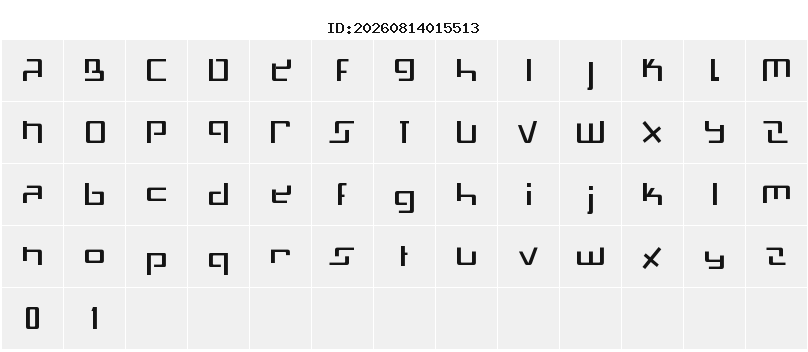
SwissMad Preview
• Font Name: SwissMad
• Full Font Name: SwissMad
About SwissMad.ttf
SwissMad.ttf is a modern, elegant sans-serif font designed for ultimate readability and visual harmony. Perfect for branding, headlines, web design, and print materials.